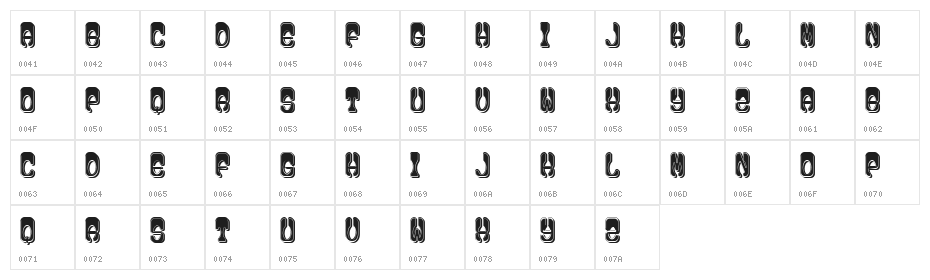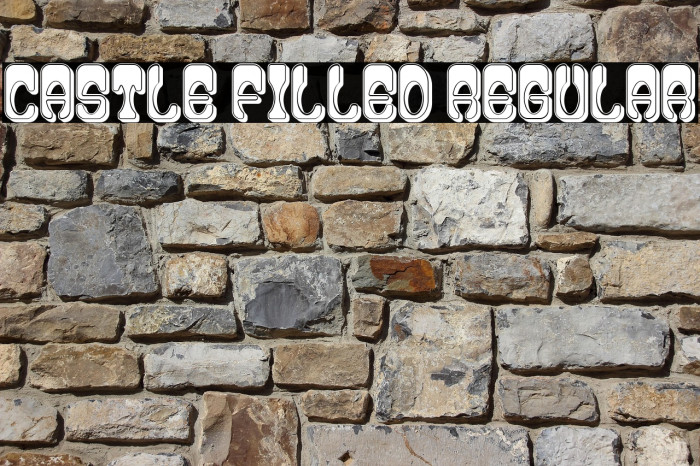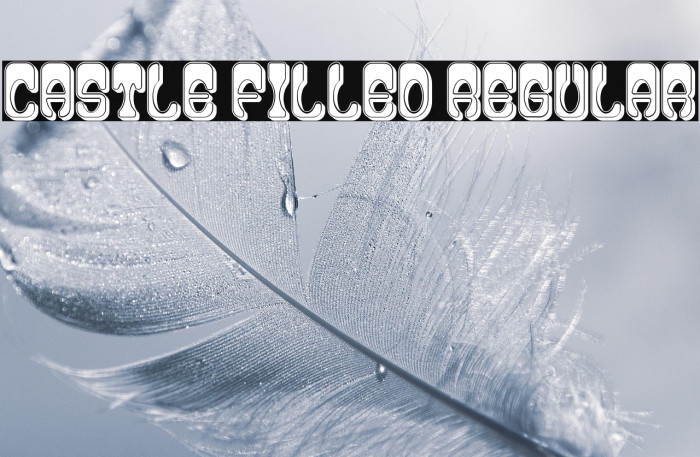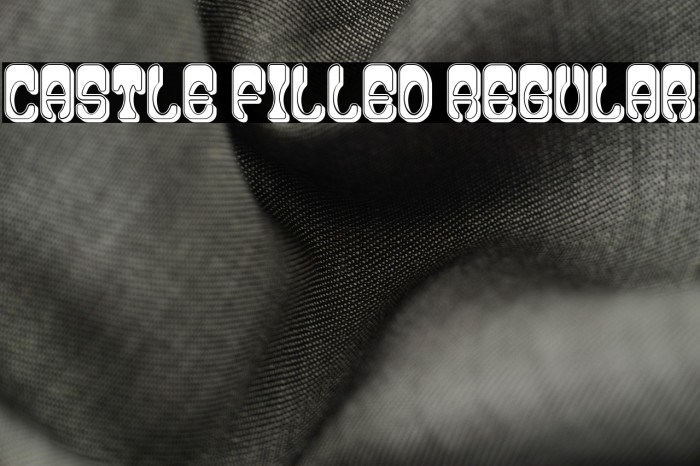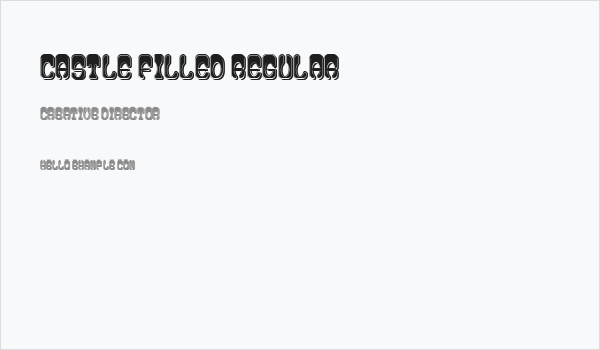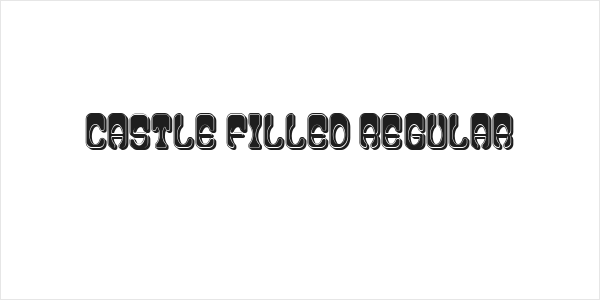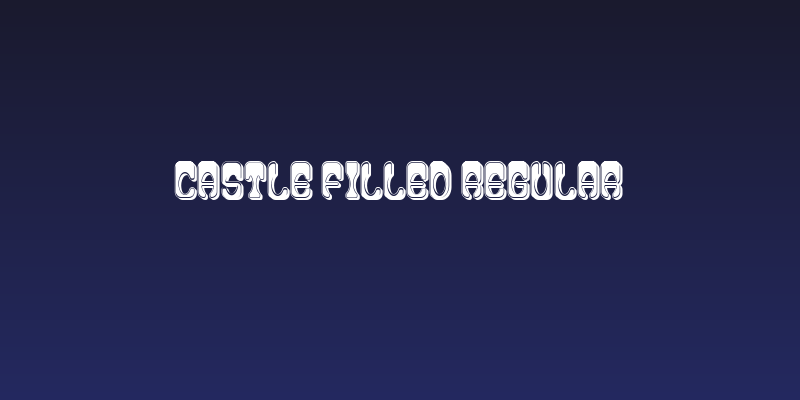
Castle Filled Regular Font
Castle Filled Regular Description
This font features a bold and decorative style with a filled, castle-like appearance. The characters are outlined with a thick border, giving them a three-dimensional effect. The design is playful yet structured, with each letter maintaining a consistent height and width. The uppercase letters exhibit a strong presence, while the lowercase letters mirror this boldness with slightly rounded edges. The numbers and special characters follow the same stylistic cues, ensuring uniformity across all glyphs. This font is ideal for eye-catching designs that require a touch of whimsy and boldness.